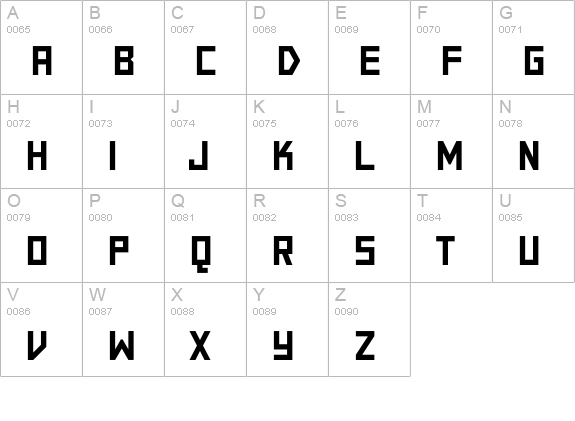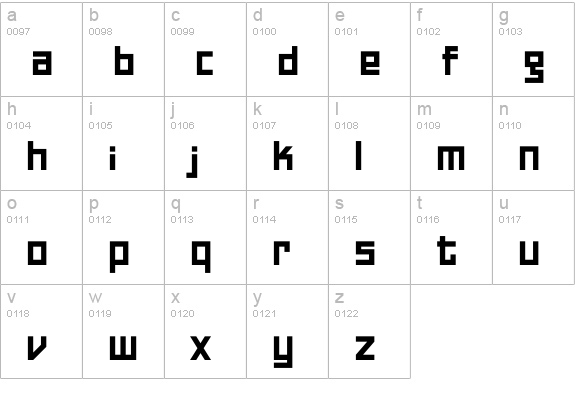
PFOnlineTwoPro-Double Font Details
Introducing PFOnlineTwoPro-Double font, a versatile and modern typeface perfect for a wide range of design projects. With its clean lines and bold appearance, PFOnlineTwoPro-Double exudes a sense of professionalism and sophistication. This font is ideal for headlines, logos, branding, and any design project where you want to make a bold statement. What makes PFOnlineTwoPro-Double even more appealing is that it is available for free download at FontsMarket.com. Yes, that's right - you can access this high-quality font without spending a penny. Whether you're a graphic designer, a student, or just someone looking to enhance your creative projects, PFOnlineTwoPro-Double is a fantastic choice. Don't miss out on the opportunity to elevate your designs with PFOnlineTwoPro-Double. Download this font today and see how it can take your projects to the next level.